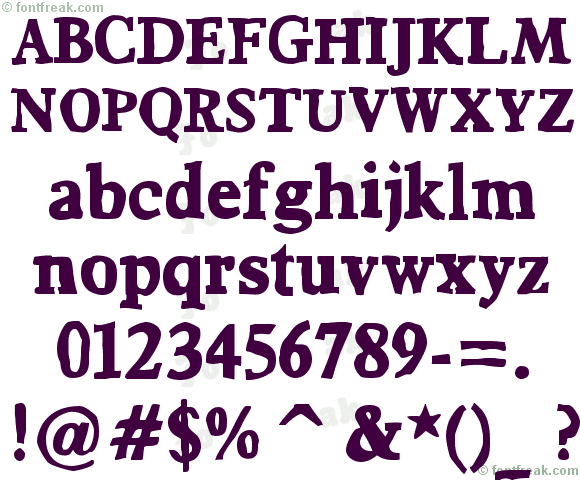
Bountiful
About Bountiful
Bountiful, created by Surface Design Group in 1996, is a striking display font that draws attention with its unique blend of contemporary styling and classic influences. This freeware font showcases a bold serif design, characterized by its robust stroke weight and moderate contrast. The carefully crafted letters feature a slightly condensed spacing, making it ideal for impactful headlines and eye-catching titles. Bountiful's decorative elements, such as its playful serifs and distinctive curves, infuse a sense of personality and charm.
This font is particularly well-suited for a variety of creative applications. Designers can utilize the Bountiful font for wedding invitations, where its elegant yet bold style can convey both sophistication and warmth. Movie posters also benefit from the font's striking presence, allowing titles to stand out against vivid imagery. Additionally, restaurant menus can use Bountiful to create an inviting atmosphere that reflects the establishment's culinary theme. Content creators looking to enhance their branding will find it an excellent choice for social media graphics and promotional materials, as it captures attention without overwhelming the viewer.
Targeting graphic designers, small business owners, and content creators, Bountiful provides a versatile tool for anyone looking to make a statement. Its balance of boldness and elegance makes it appealing to a wide audience. The distinct character of this font sets it apart in a crowded market, ensuring that any design featuring Bountiful will leave a lasting impression. With a Bountiful font free download available, users can easily incorporate this remarkable typeface into their projects, enhancing their creative endeavors and elevating their visual communication.